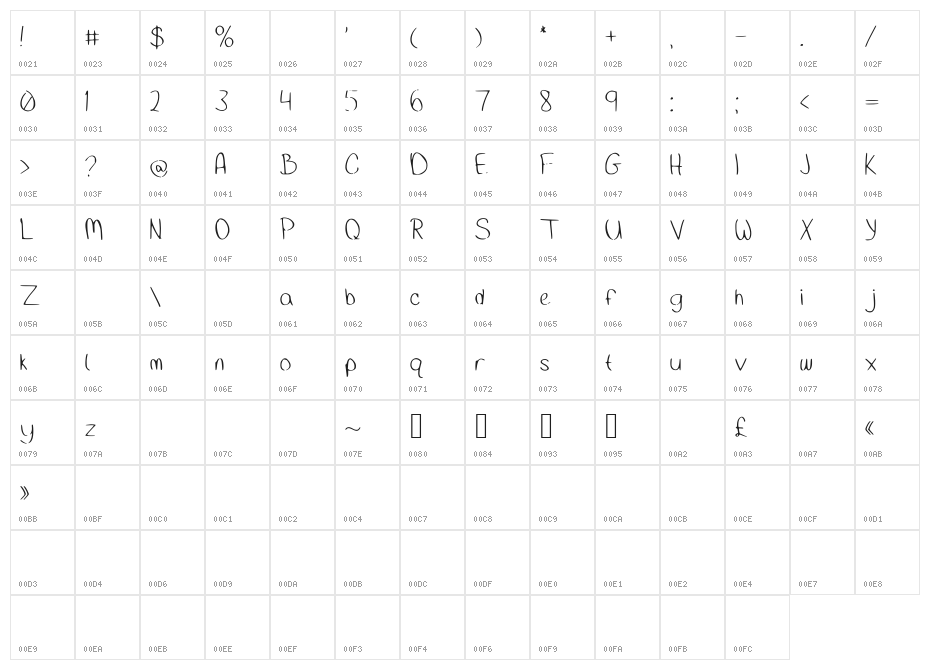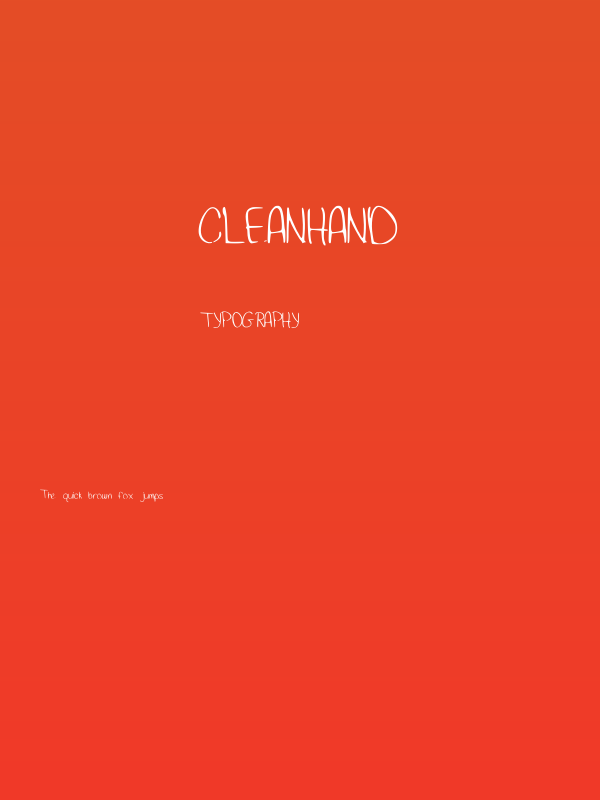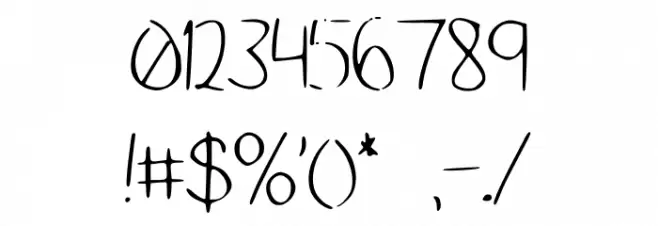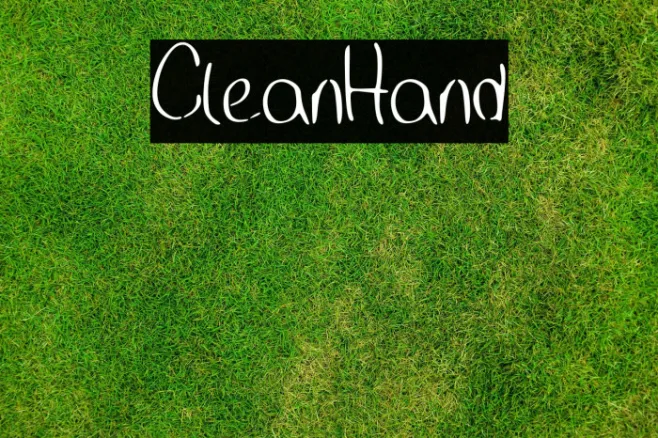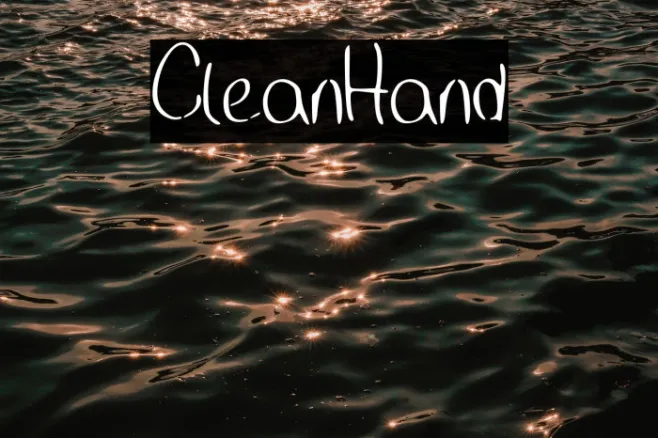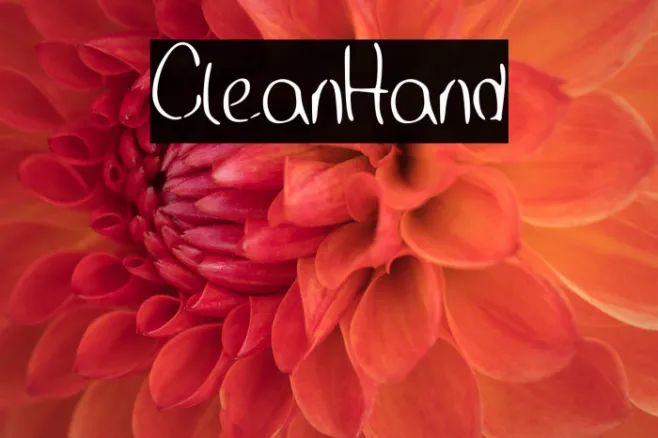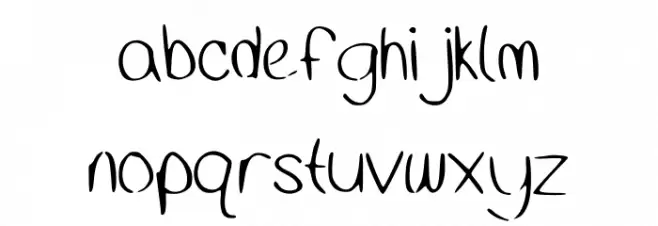
CleanHand Font
CleanHand Description
A playful and casual handwritten font with a slightly uneven baseline and rounded edges, giving it a friendly and approachable look.
| Use Case | Logos, informal text, creative projects. |
| Proposed Projects | Greeting cards, invitations, personal branding. |